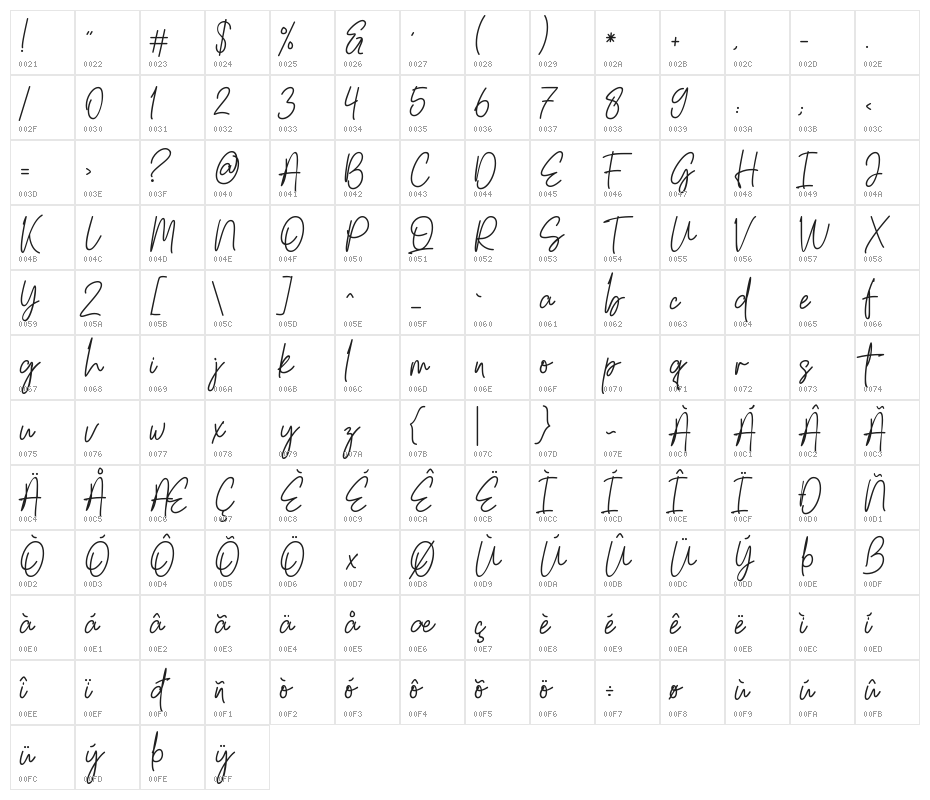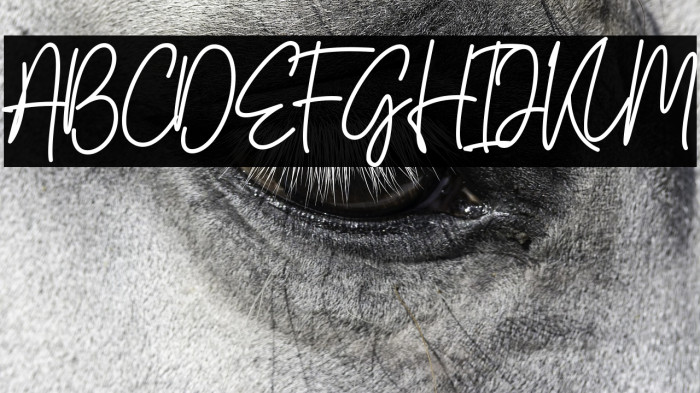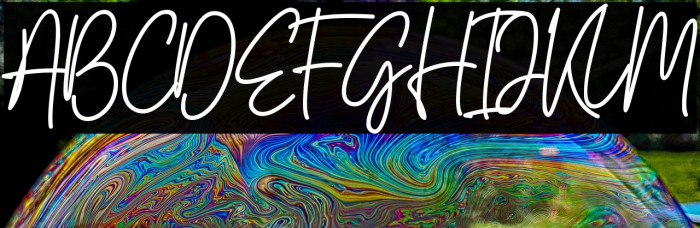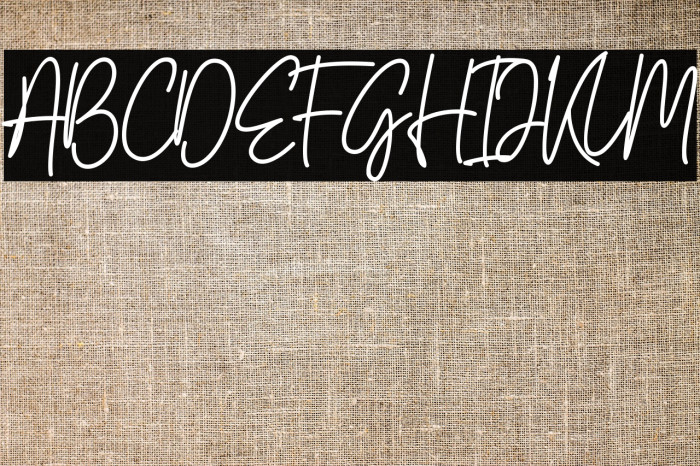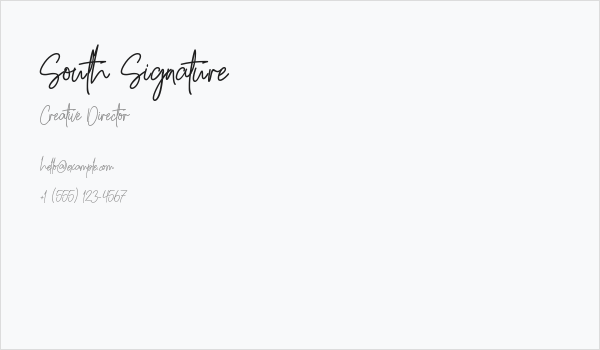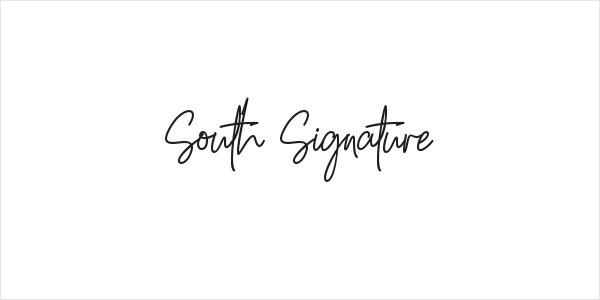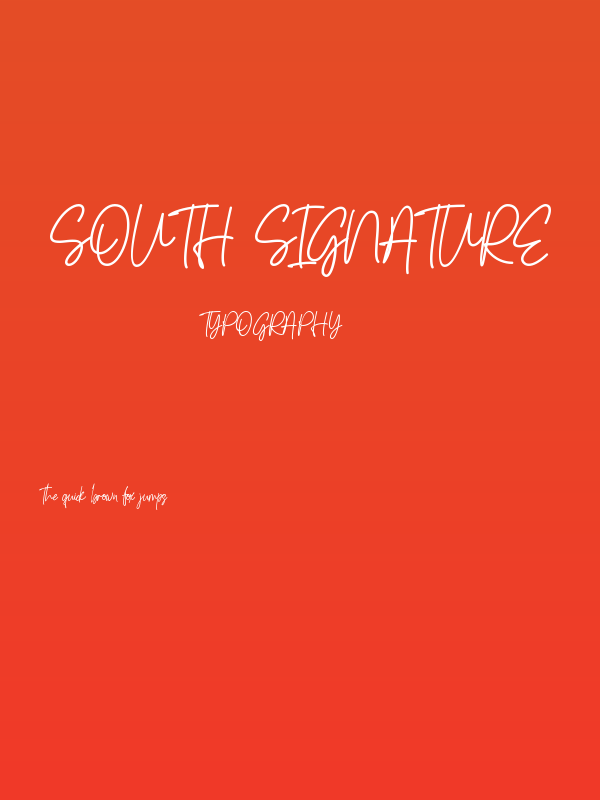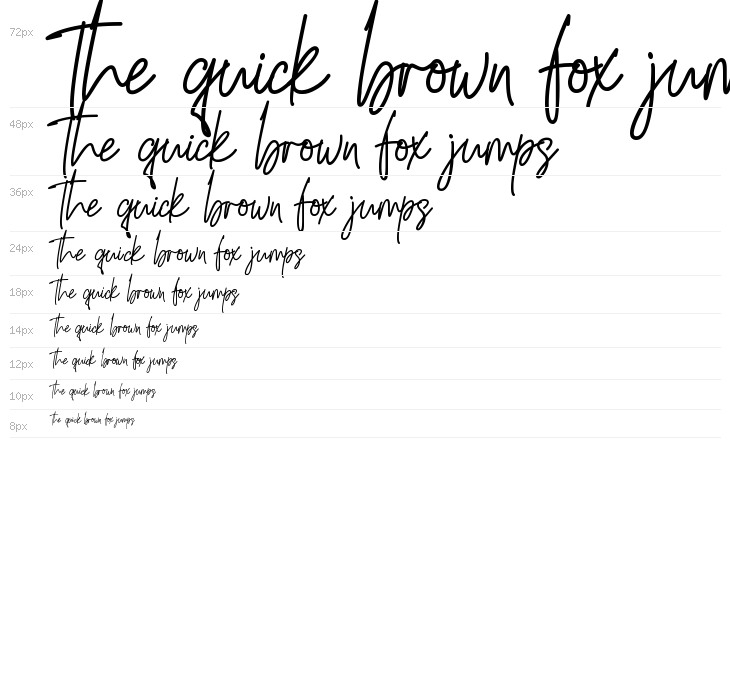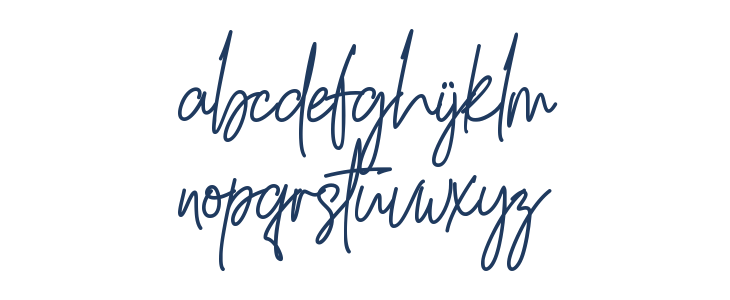
South Signature Font
South Signature Description
This font features a fluid and elegant handwritten style, characterized by its smooth, flowing lines and natural curves. The uppercase letters are tall and slightly narrow, giving a sense of sophistication and grace. The lowercase letters maintain a consistent flow, with some letters connecting seamlessly to others, enhancing the script-like appearance. Numbers and special characters are crafted with the same attention to detail, ensuring a cohesive look across all elements. The overall design exudes a personal and artistic touch, making it ideal for projects that require a humanistic and approachable feel.
| Use Case | Logos, Invitations, Personal branding |
| Proposed Projects | Ideal for wedding invitations, personal branding, greeting cards, and artistic projects. |